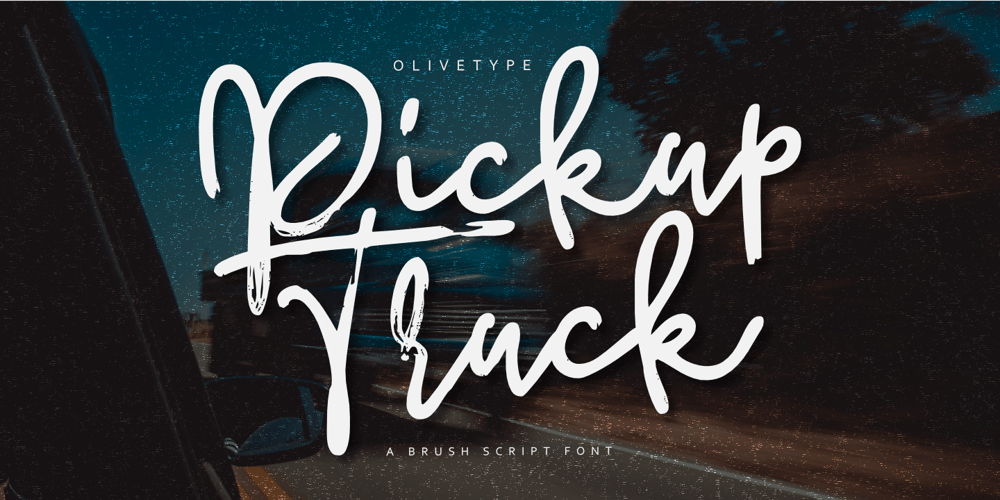
Pickup Truck Font Family was designed by Nurul Hidayani and published by Olivetype. Pickup Truck contains 1 styles and family package options. Unlock your design potential with this striking brush script font and let your words stand out like never before. Whether you’re crafting merchandise for an adventurous brand or adding flair to personal creations, Pickup Truck enhances every visual element with its unique charm. Elevate your typography game today—your audience won’t be able to look away!Pickup Truck features :- Standard Latin- Numbers, symbols, and punctuations- Ligatures and Swashes- Multilingual Support.- Fully accessible without additional design software- Simple Installations- Works on PC & MacThank You.